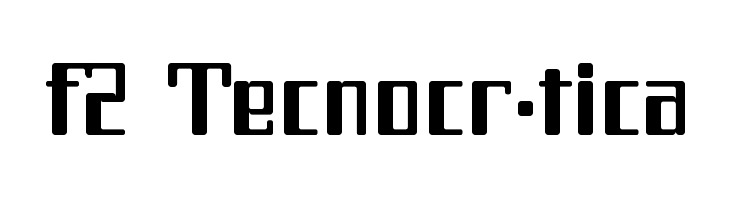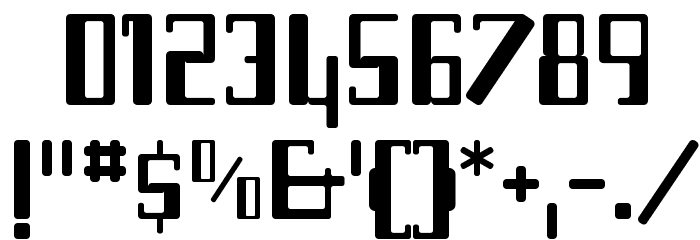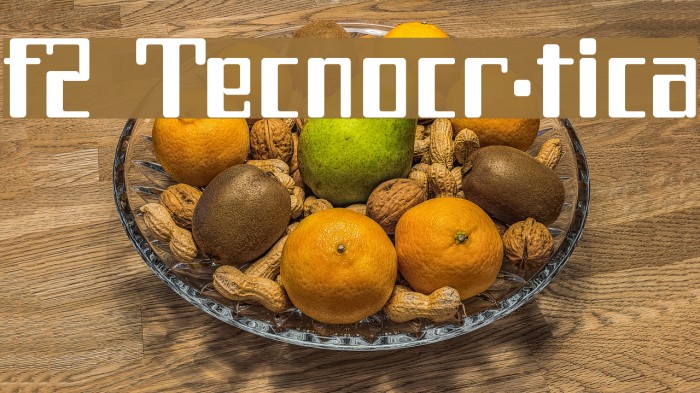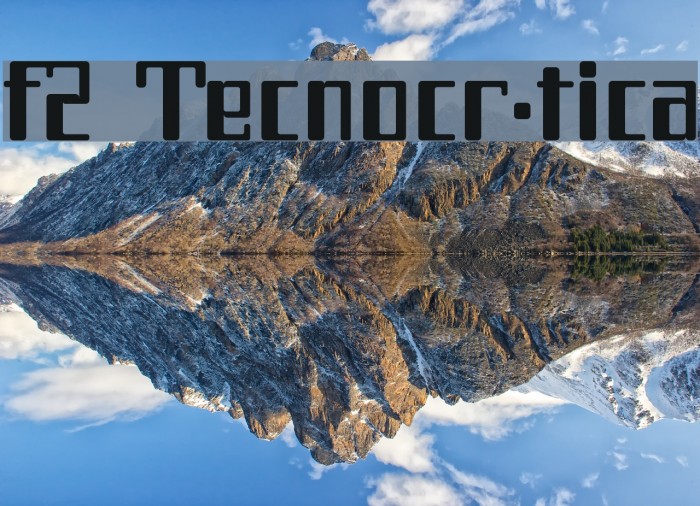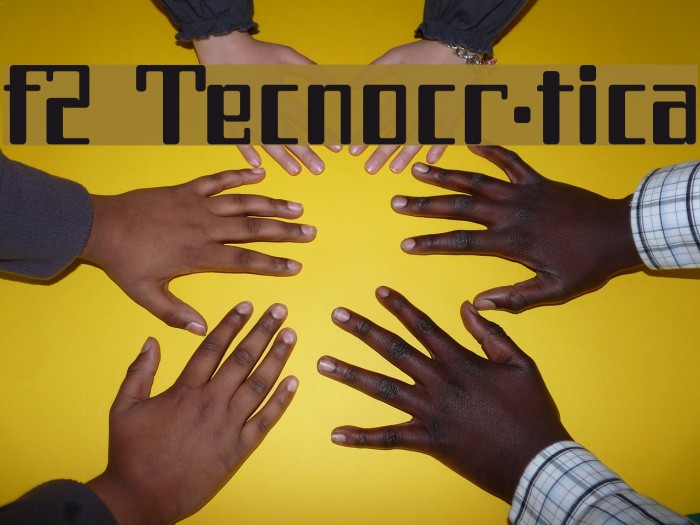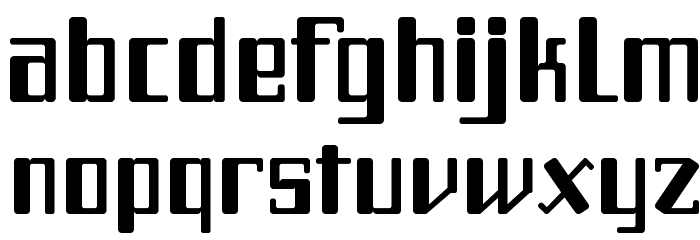
f2 Tecnocr·tica Font
f2 Tecnocr·tica Description
This font features a modern, geometric design with a strong emphasis on angular shapes and clean lines. The uppercase and lowercase letters maintain a consistent height, creating a uniform appearance. The characters are slightly condensed, giving a compact look while still being highly legible. The numerals and special characters follow the same design principles, ensuring a cohesive style throughout. The font's bold strokes and minimal contrast make it suitable for digital displays and print media. Its futuristic aesthetic is ideal for technology-related projects, branding, and advertising.
| Use Case | Logos, Headlines, Digital interfaces |
| Proposed Projects | Ideal for technology branding, digital interfaces, advertising, and modern print media. |